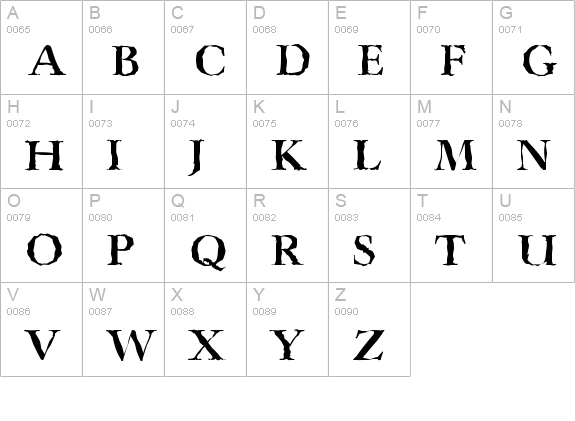
LingwoodRandom-Bold Font Details
LingwoodRandom-Bold is a strong, high-contrast variant in the LingwoodRandom typeface family \xE2\x80\x94 well suited to headlines, attention-grabbing titles, and strong calls-to-action.
Introducing LingwoodRandom-Bold font, a striking and versatile typeface that exudes creativity and modernity. This bold display font features unique and irregular letterforms that add a touch of whimsy to any design project. With its strong presence and eye-catching appeal, LingwoodRandom-Bold is perfect for headlines, logos, posters, and branding materials. The best part? LingwoodRandom-Bold is available for free download at FontsMarket.com, making it easily accessible for designers and creatives looking to add a distinctive flair to their work. Whether you're working on a digital design or a print project, this font is sure to make a bold statement and captivate your audience. Elevate your designs with LingwoodRandom-Bold and unleash your creativity today!